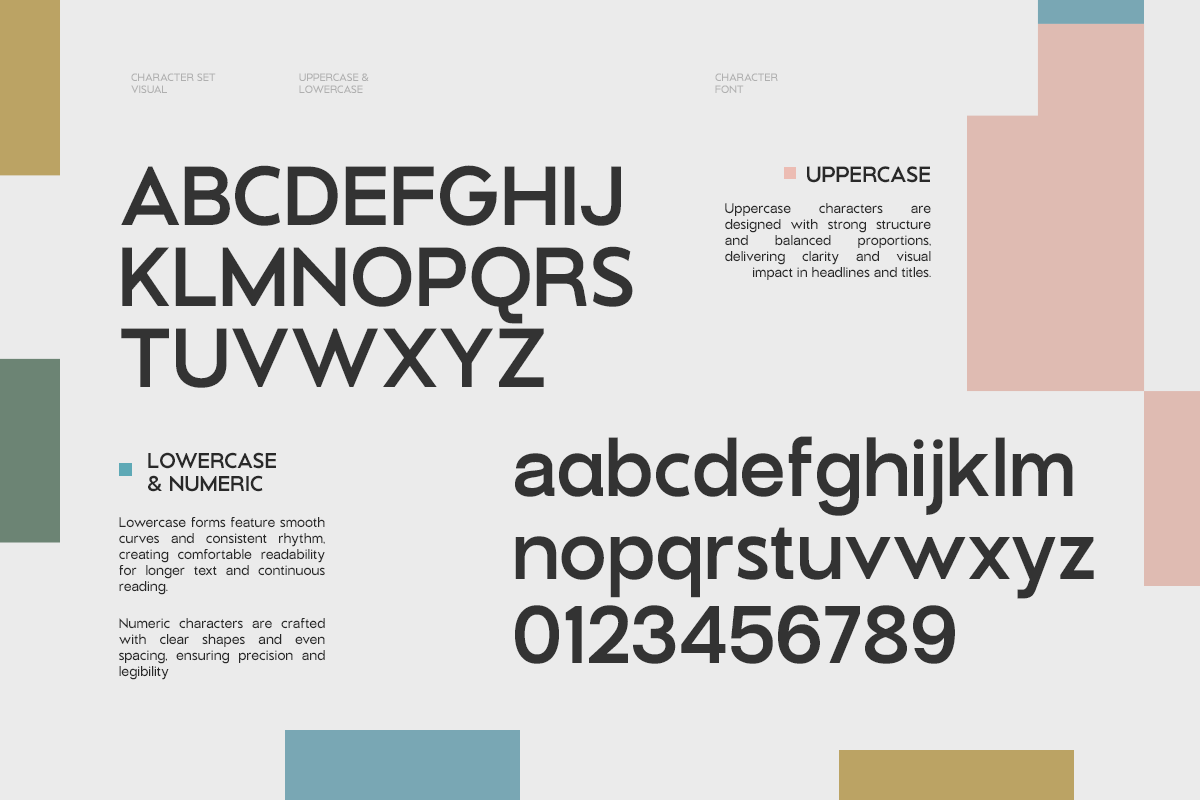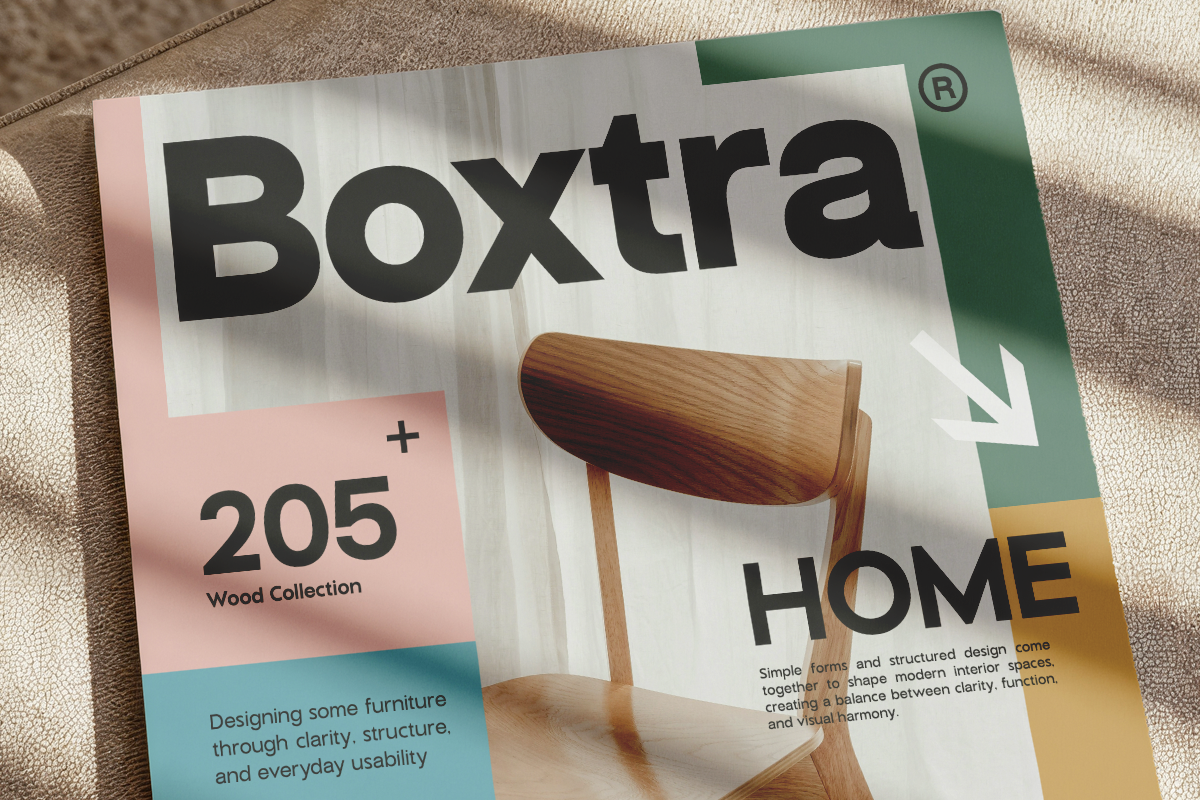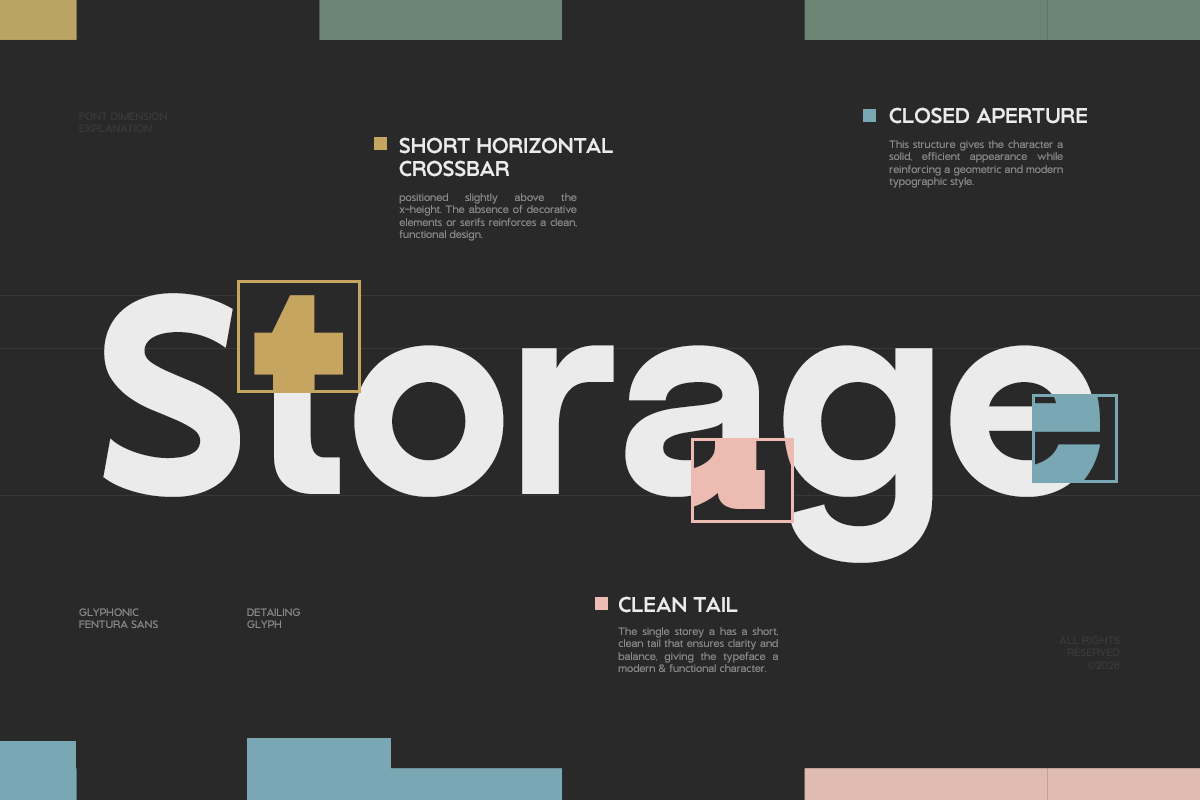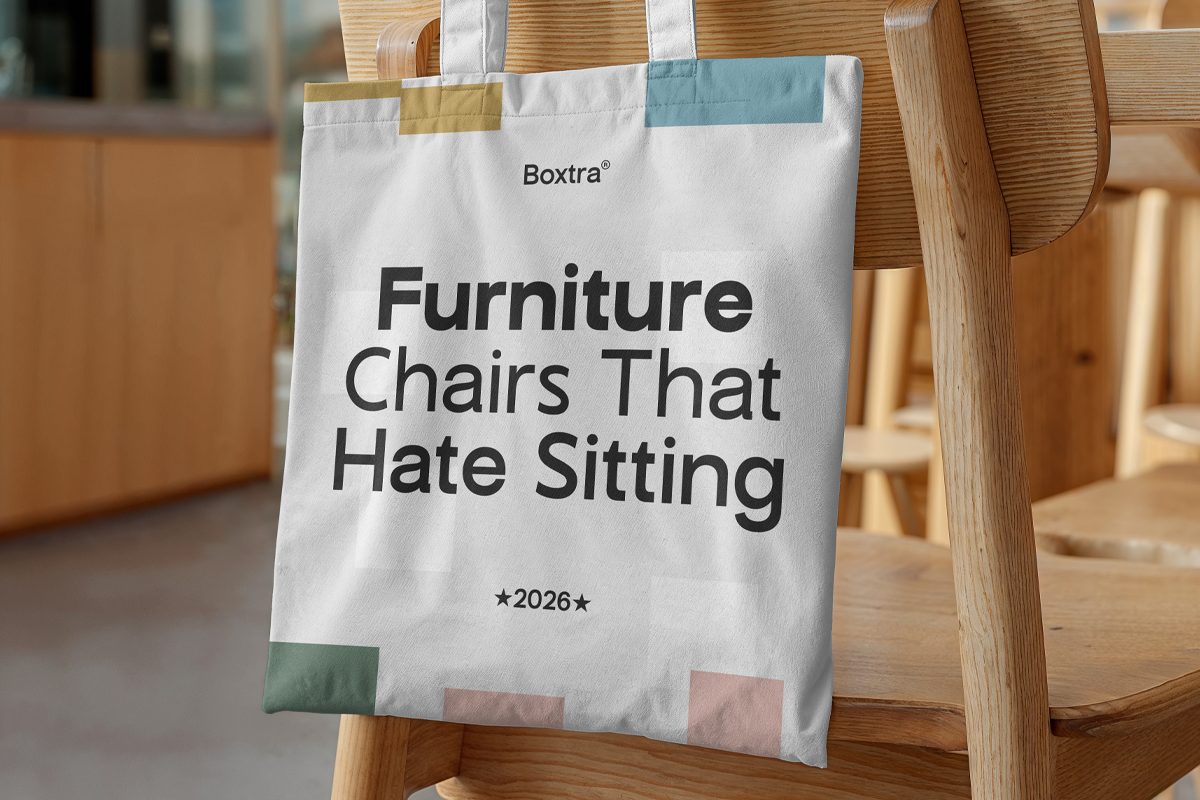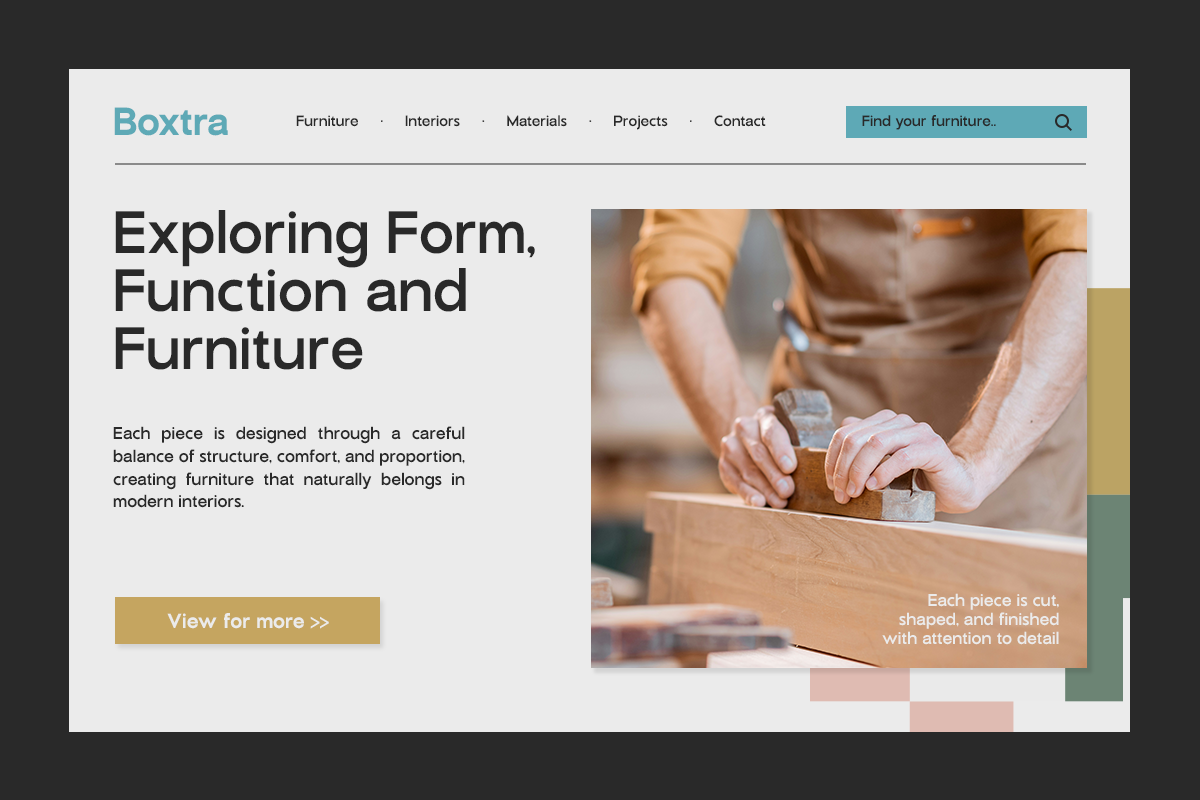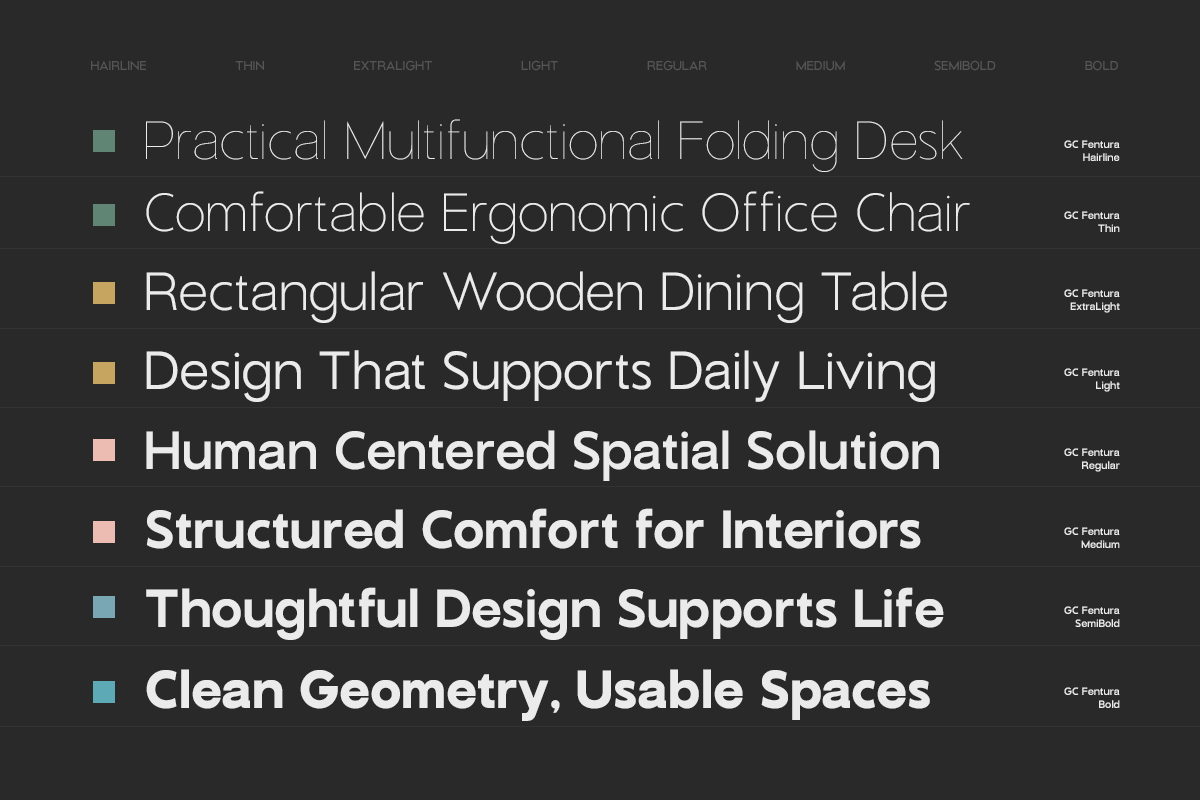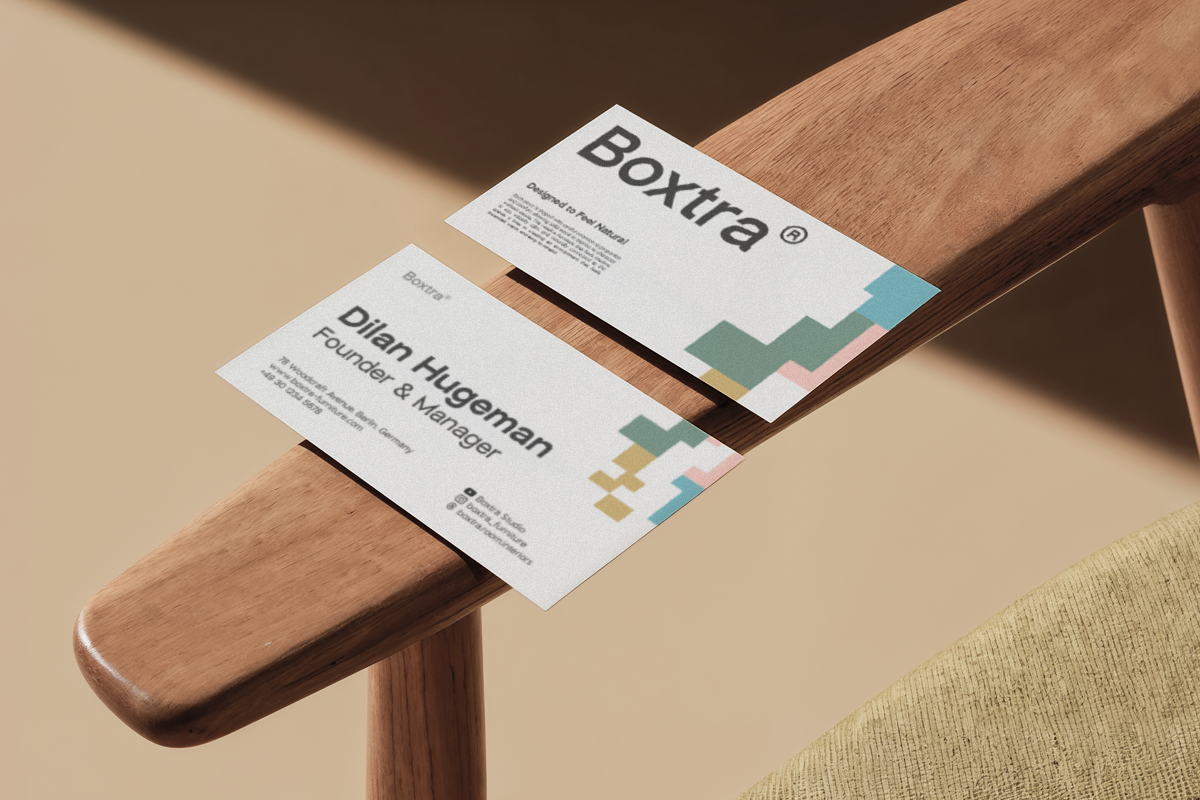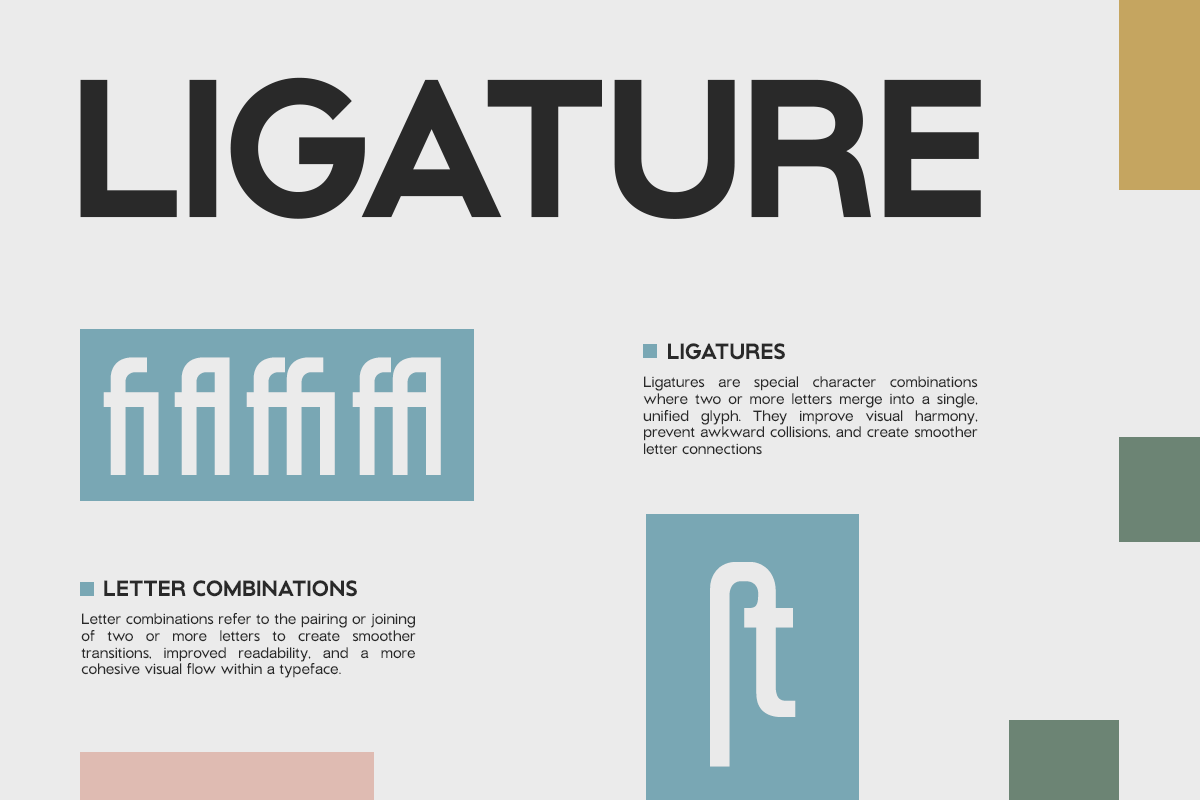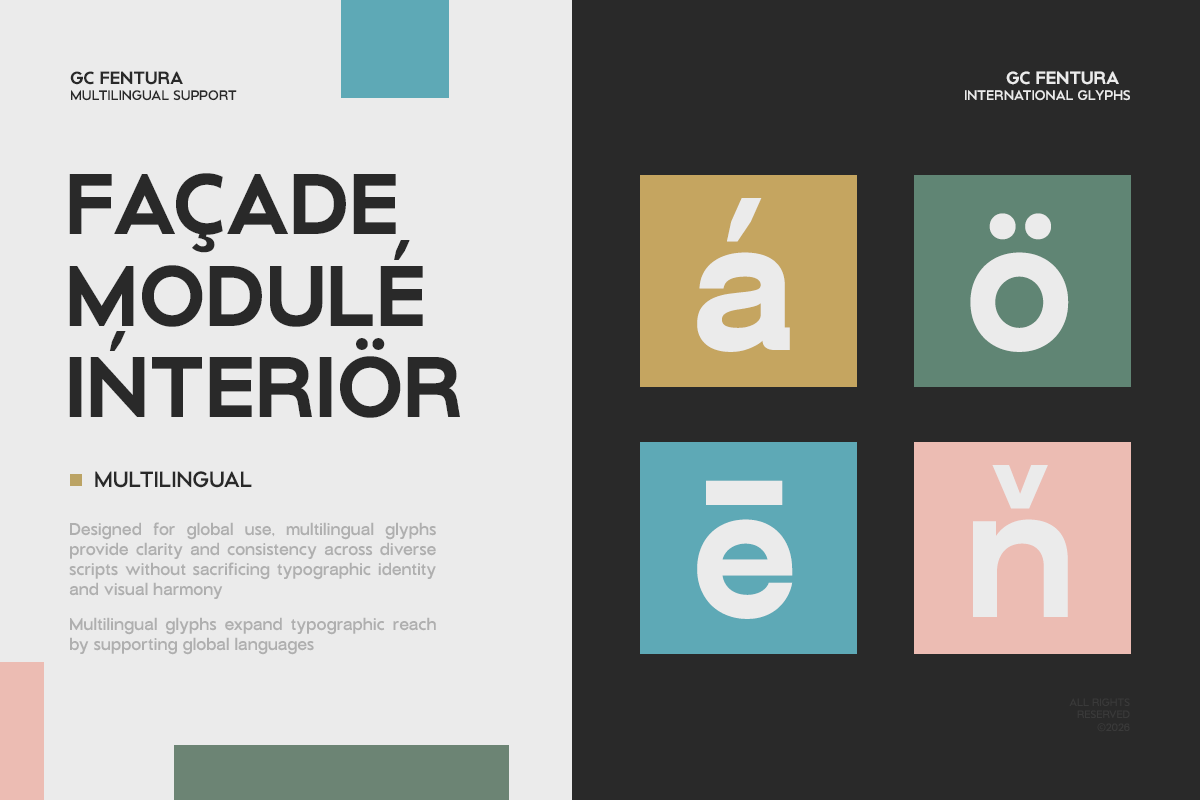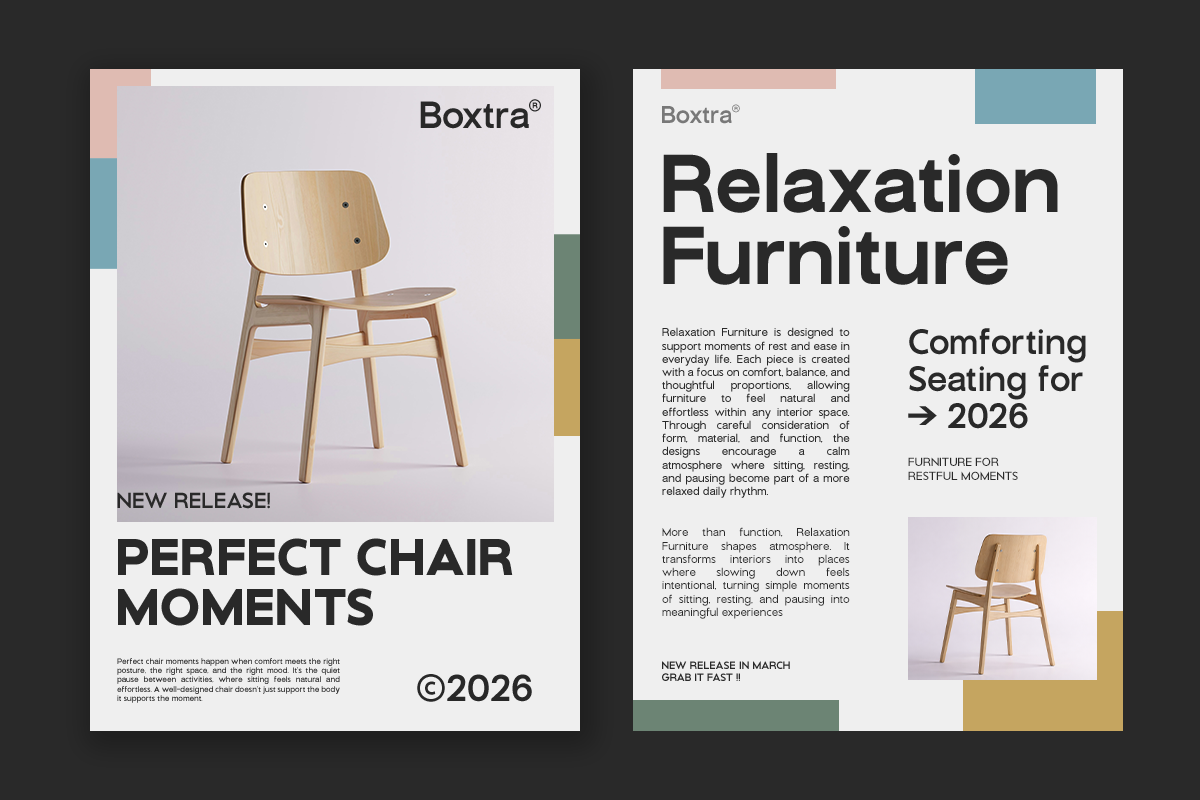
GC Fentura – Modern Structure Sans
GC Fentura – Modern Structure Sans is a contemporary sans serif family designed with clean geometry, refined proportions, and a structured visual rhythm. Created for modern branding and professional design systems, GC Fentura delivers a confident typographic voice that feels minimal, versatile, and highly functional across every creative application.
Built around balanced construction and excellent readability, GC Fentura offers a complete range of weights that work seamlessly from elegant body text to bold display headlines. Its precise letterforms and modern spacing create a timeless sans serif aesthetic that adapts effortlessly to branding, editorial design, packaging, web interfaces, logos, and digital products.
Every character is carefully crafted to maintain consistency across different sizes and layouts, making GC Fentura a reliable choice for designers who need clarity without sacrificing personality. The result is a modern sans family that combines professional structure with contemporary style.
Whether you're designing a brand identity, editorial publication, UI/UX interface, presentation, or marketing campaign, GC Fentura provides the flexibility, balance, and visual confidence needed for today's creative projects.
Modern Structure Sans Family
Multiple Font Weights
Clean Geometric Construction
Symbols & Stylistic Alternates
Excellent Readability
Multilingual Support (170+ Languages)
GC Fentura brings structure, clarity, and modern versatility into one complete sans serif family—designed for branding, editorial, digital, and professional visual communication.